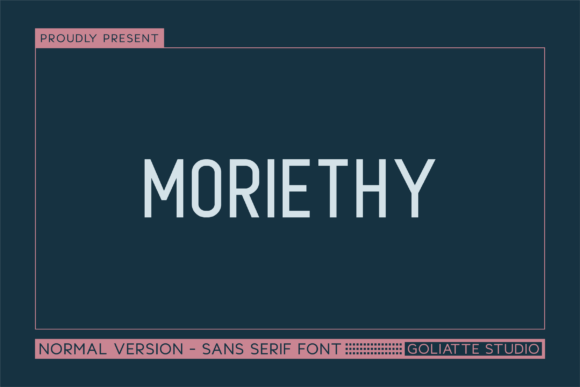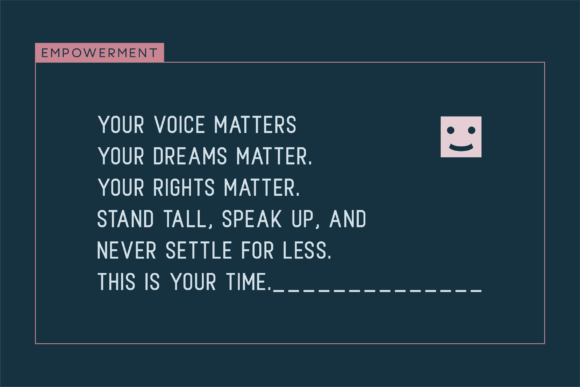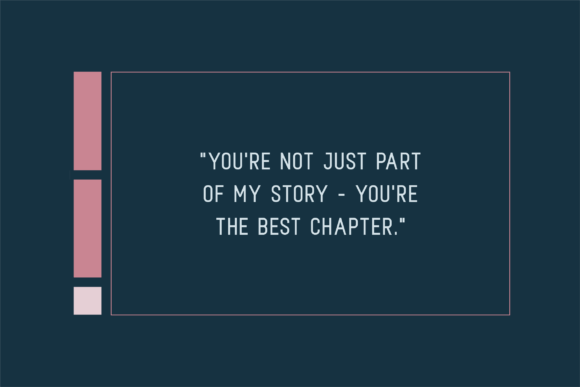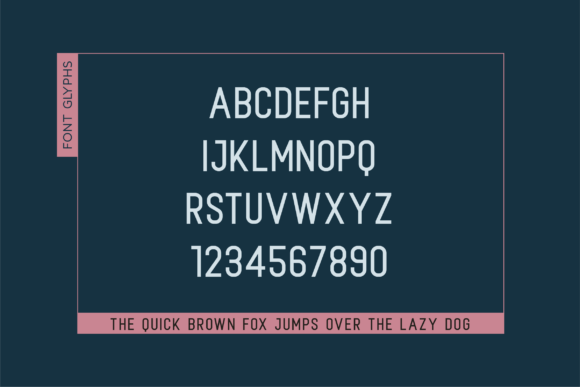
Moriethy Font: Modern Sans Serif for Impactful Logo Design & Branding
About the Moriethy Font
The Moriethy Font offers a perfect balance of form and function for your design needs. Introducing Moriethy – A Modern Sans Serif Typeface
Moriethy is a bold, all-caps sans serif font designed for the modern designer. With its clean lines and minimalist aesthetic, this typeface exudes strength and authority. It is perfect for projects that require a sense of professionalism and impact. Whether you’re designing a logo, website, or print material, Moriethy makes a statement with its sharp, crisp edges.
The strong, geometric structure of Moriethy ensures versatility, from digital interfaces to high-end branding. The all-caps design emphasizes clarity and readability, making it ideal for headlines, posters, and anywhere you need your message to stand out.
Features:
All-caps design for maximum impact
Modern, minimalist style with a focus on readability
Bold, clean lines for a confident and professional look
Ideal for branding, logos, packaging, and digital design
Perfect for both large-scale headlines and smaller text blocks
Moriethy is perfect for brands, agencies, and designers looking to create a modern, authoritative identity. It’s especially suitable for tech companies, corporate branding, and luxury design projects where style and readability are paramount.
Stand out with Moriethy – a typeface built to make an impression.
Moriethy Font Usage Examples
Moriethy Font Example